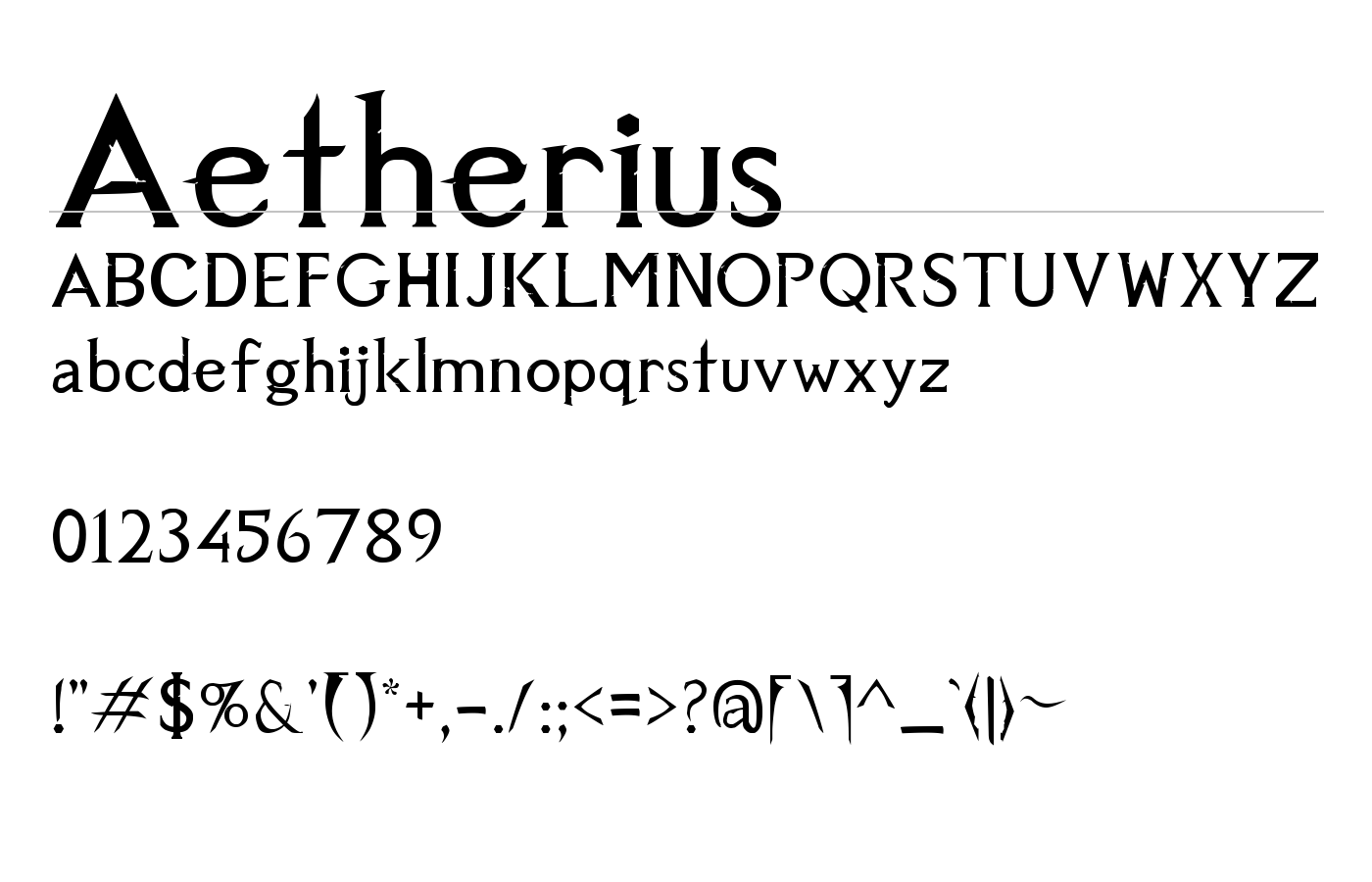
Aetherius is a distinctive serif font with a unique blend of sharp and slightly irregular strokes that give it a mysterious, somewhat gothic feel. Its medium weight and relatively narrow proportions, combined with bracketed serifs and a moderate contrast between thick and thin lines, make it ideal for creative headlines or branding where a touch of elegance and intrigue is desired. This font suits projects that aim for a sophisticated yet unconventional look, such as fantasy-themed designs, editorial titles, or fashion branding with a dark, artistic flair.
Aetherius Font
About Aetherius Font